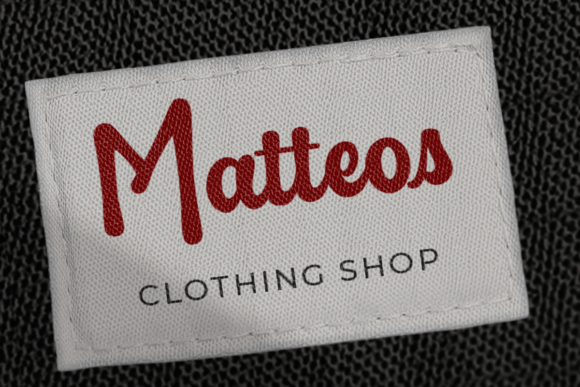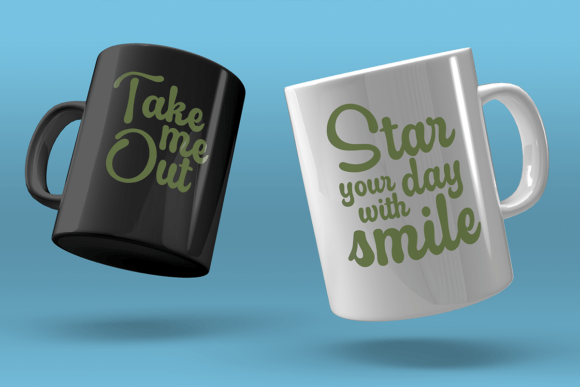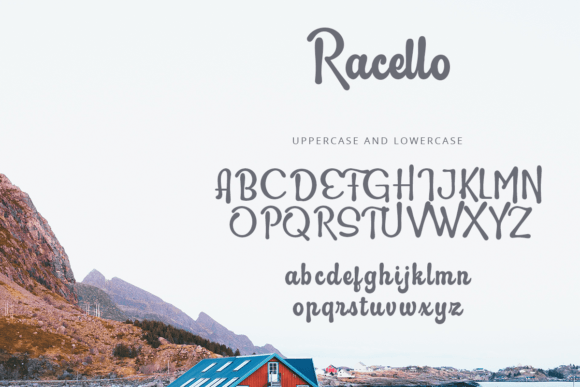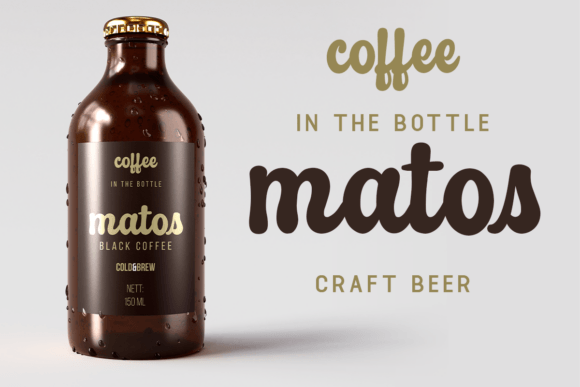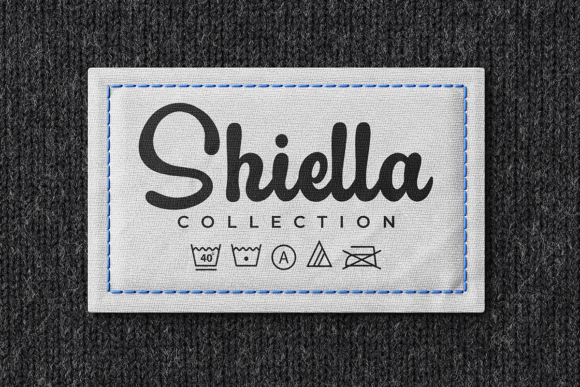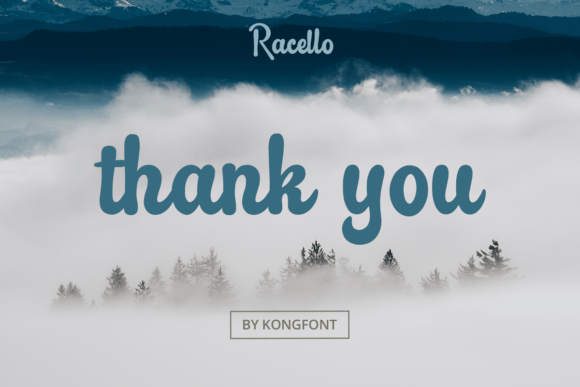
Introduction to Racello Font
Have you ever been in a rush to create a beautiful wedding invitation, only to realize that your font choices are falling flat? You want something that exudes elegance and sophistication, but also reflects the personal touch of your handwriting. That’s where the Racello Font comes in – a high-quality, elegant typeface that captures the essence of natural handwriting with a touch of refinement.
As a designer, you’re always on the lookout for the perfect font to elevate your creative projects. Whether it’s a branding project, a quote, or a logo, the Racello Font is an invaluable design resource that’s sure to impress. With its smooth and stylish curves, it adds a level of sophistication to any project, making it perfect for those who want to make a statement without sacrificing transparency and clarity.
Key Features of Racello Font
- High-quality design suitable for creative projects, offering a unique and elegant touch.
- Unique characteristic: Its cursive and script styles make it ideal for titles, headings, and other decorative text elements.
Honest Review: Racello Font
I recently stumbled upon the Racello Font, and I must say it’s been a game-changer for my creative projects. This high-quality font is perfect for designers who want to add a touch of elegance and sophistication to their designs.
What works well: ✨ The transparent background of the font makes it incredibly versatile, allowing me to use it on both light and dark backgrounds. The font’s clean and modern design also makes it easy to read, even at smaller font sizes.
Limitations: ⚠️ While the Racello Font is incredibly versatile, it may not be the best choice for projects that require a more playful or informal tone. Additionally, the font’s simplicity may make it difficult to stand out in crowded designs.
- Perfect for elegant and sophisticated designs
Racello Font
Common Use Cases for Racello Font
The Racello Font is suitable for a wide range of design projects, including brochures, business cards, and social media graphics. Its versatility and high-quality design make it an excellent choice for creative professionals and designers.